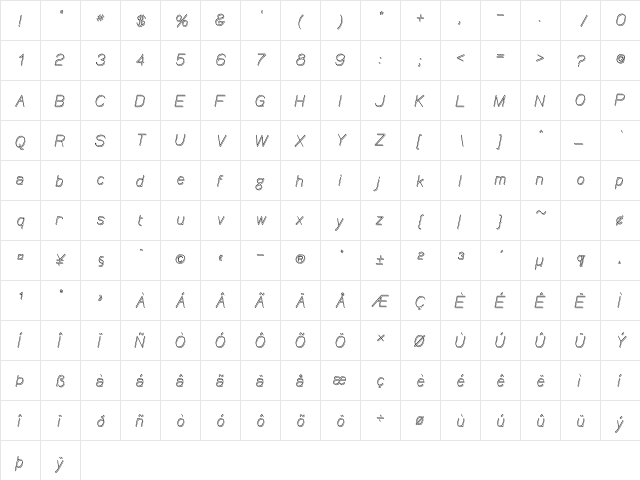
Canin Regular
Design Context for Canin Typeface
Canin takes a measured approach to typography — its balanced proportions and neutral character make it a reliable workhorse for both digital and print work.